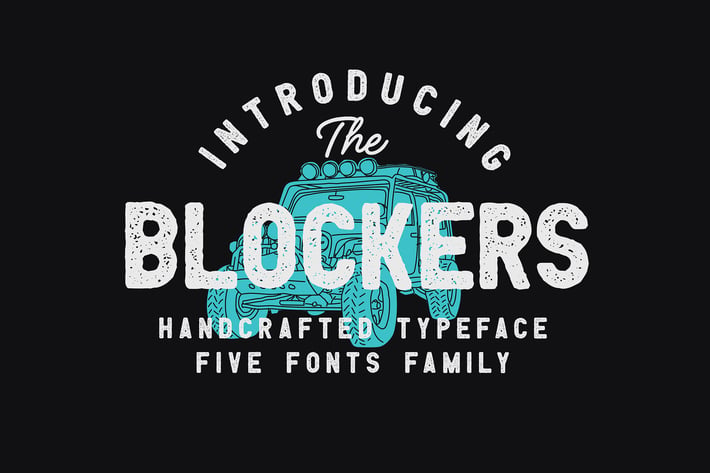
Blockers 5 Font Family
INTRODUCING The Blockers sans. This sans serif font designed with carefully handcrafted also this font have 5 fonts family, very suitable for t-shirt, vintage design, sign, badge, labels, and many more!